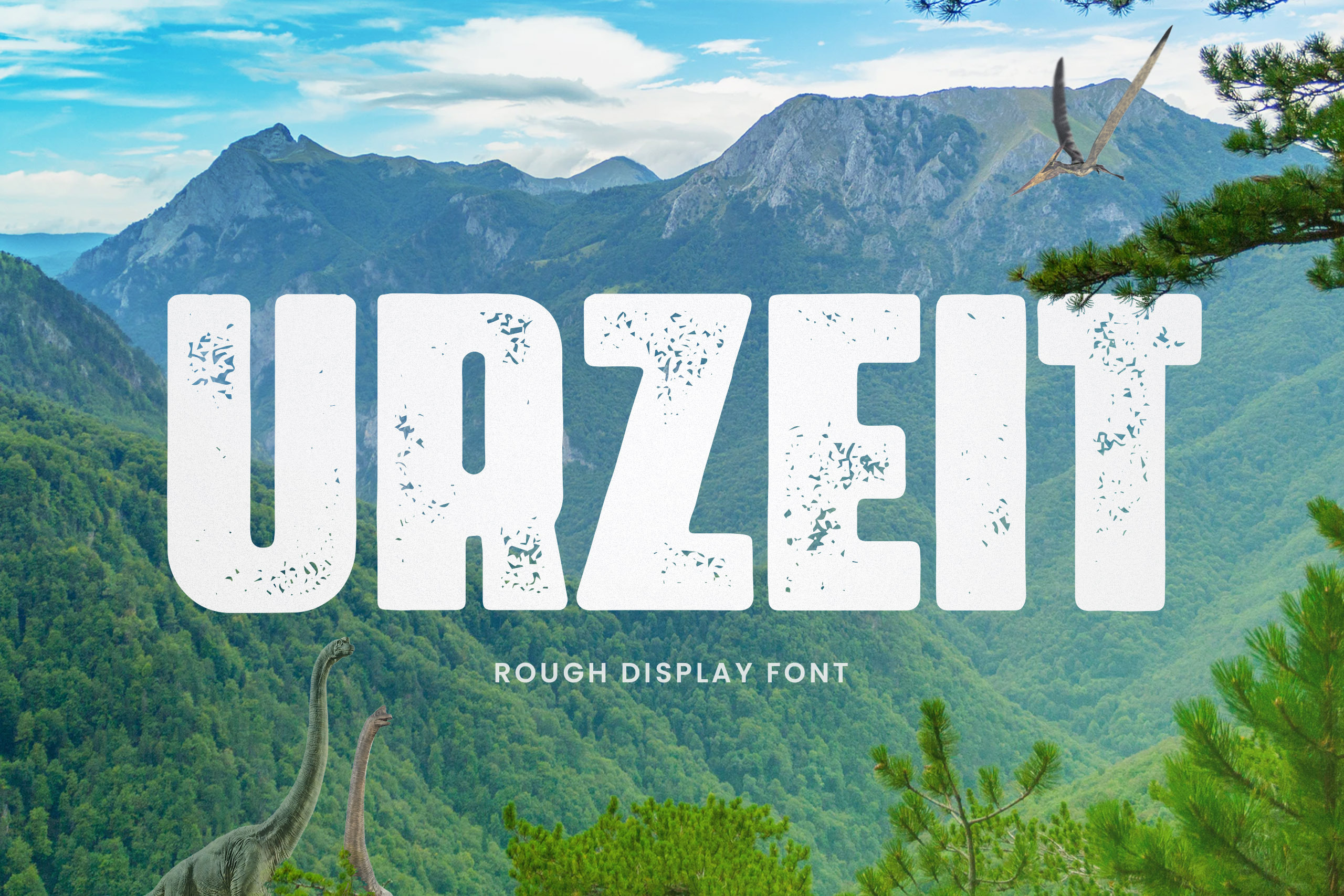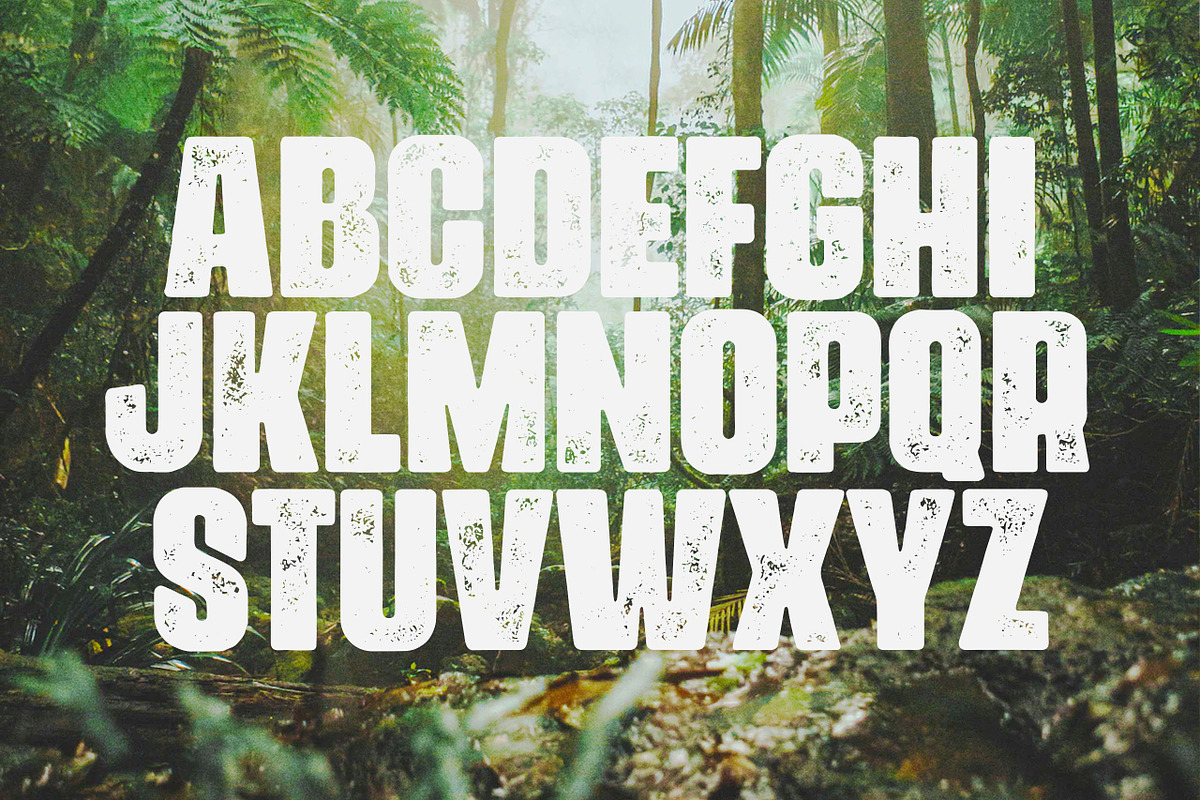
URZEIT - A Very Old Typeface
“URZEIT” is german for “primeval”. So for this font we travelled back in time and found a very antiquated and rustic version of our original font “Mind the Caps”, which we released some time ago.Of course we had to recover this special relict for all of you to enjoy and this time we’re also making its full version completely FREE. Its original smoothness and rounded edges are now presented with a dirty, rough and vintage look, which gives the font a completely new character and the true feeling of a million year old font discovery.